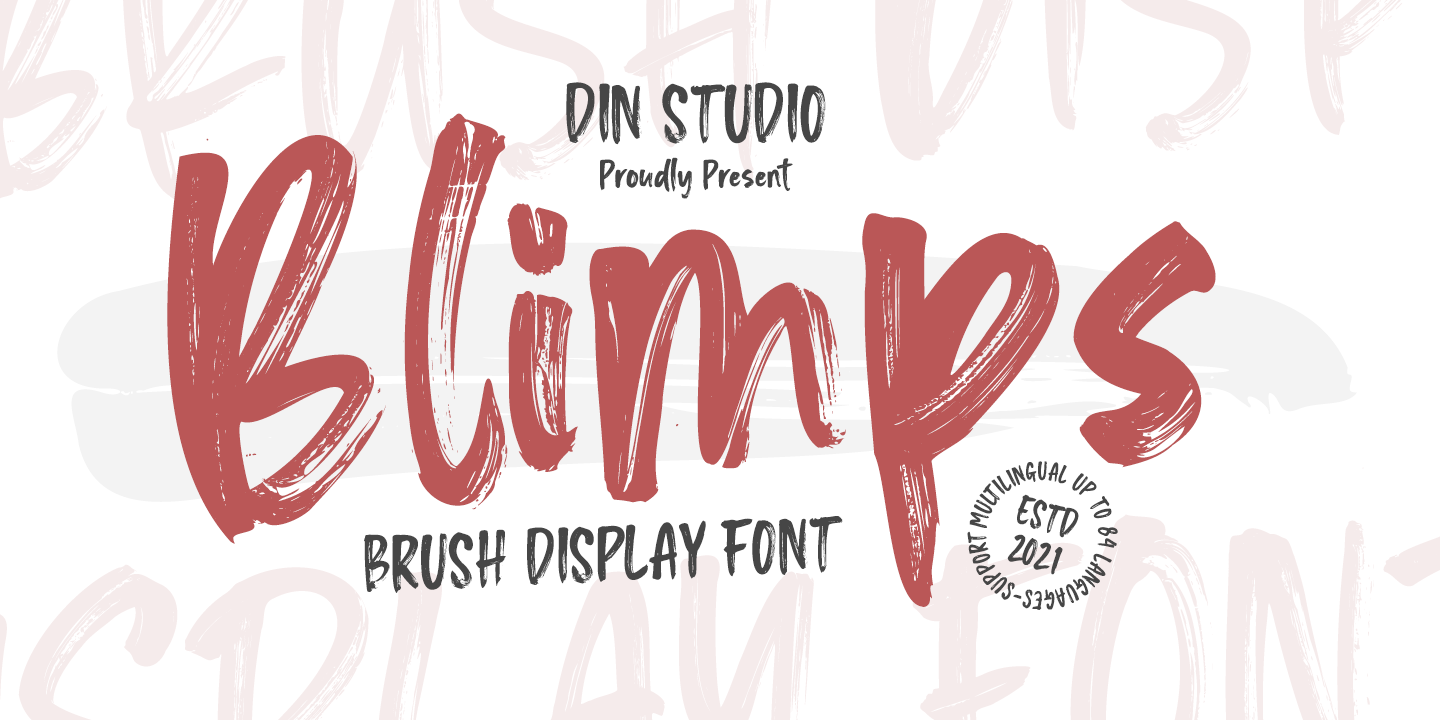
Blimps Font is perfect for aviation branding, airship designs, floating balloon graphics, aerial advertising campaigns, sky-themed materials, vintage aviation publications, air travel promotions, and buoyant display typography.
What makes Blimps Font exciting is its floating airborne character that embodies aerial grace and sky navigation through rounded letterforms and airship appeal. This buoyant typeface features airship construction, floating details, and aerial personality that captures the essence of sky travel and atmospheric adventure, making it ideal for projects seeking to communicate aerial freedom, sky exploration, and airborne sophistication with authentic airship appeal and atmospheric refinement.
The Blimps Font family includes Light, Regular, and Bold weights, each maintaining the characteristic floating grace and airship appeal that define this distinctive typeface's aerial personality and sky sophistication.
Blimps Font Free Download offers designers access to a typeface that perfectly captures the essence of airship elegance and aerial adventure. This floating font brings authentic atmospheric aesthetics to contemporary projects, making it essential for aviation companies, aerial advertising agencies, and sky-themed brands targeting audiences who appreciate aerial innovation and atmospheric travel. The font's airship construction and floating details ensure immediate recognition of grace and freedom while its distinctive character creates uplifting connections among individuals drawn to sky adventures and aerial experiences. Whether designing aviation promotional materials, aerial advertising campaigns, or sky-themed brand communications, this font delivers the airship authenticity and aerial sophistication that aviation enthusiasts expect. Its atmospheric foundation and airship symbolism make it indispensable for projects celebrating aviation culture, aerial innovation, and the graceful beauty of sky navigation, ensuring communications resonate with audiences who value the aerial freedom, atmospheric adventure, and airship elegance that define authentic aviation experiences and sky exploration across diverse aviation and aerial applications.